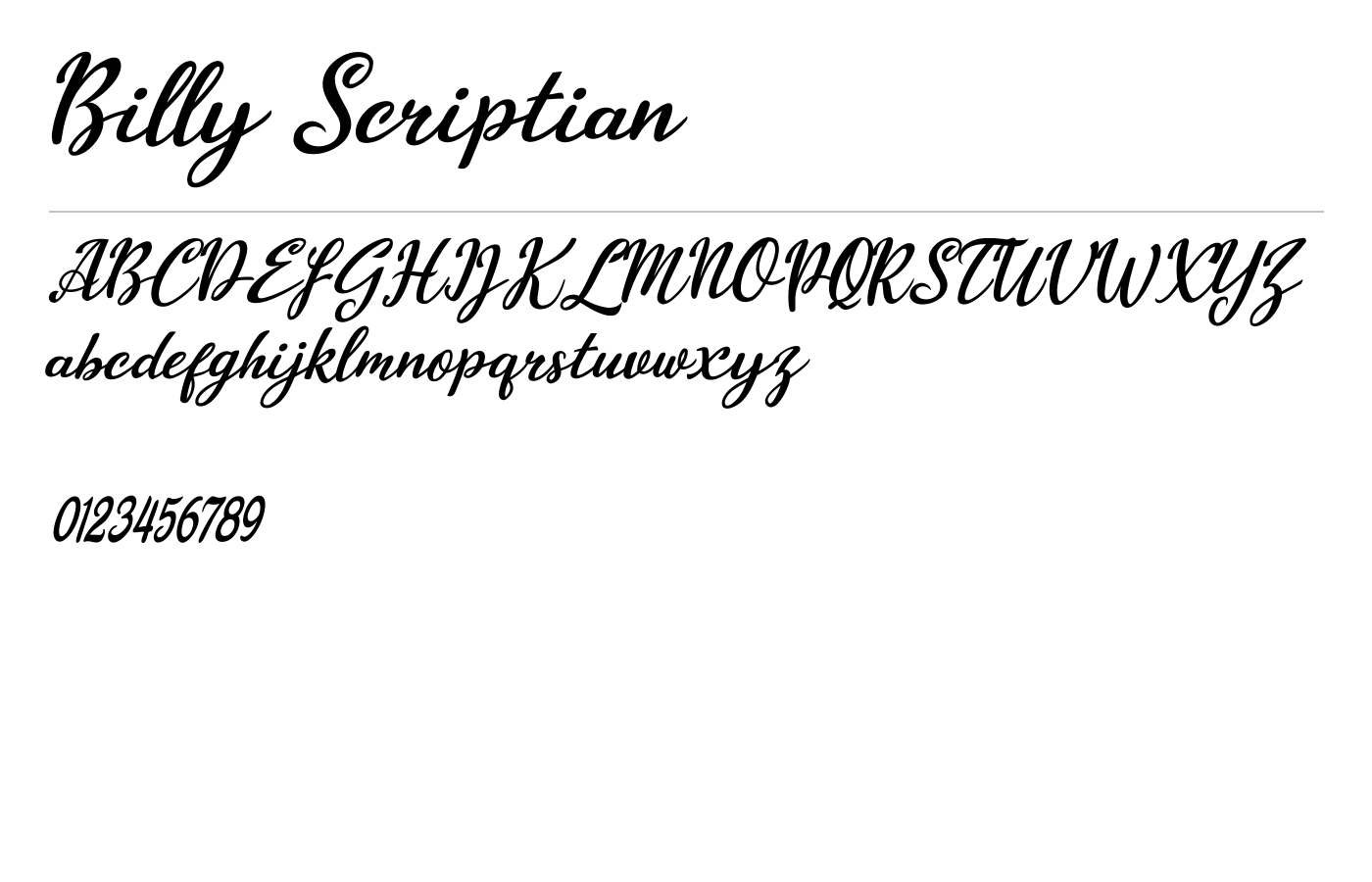
Billy Scriptian is a stylish, flowing script font with a medium weight and elegant, connected letterforms that mimic natural handwriting. Its smooth, slightly slanted strokes and balanced contrast create a refined yet approachable look, making it perfect for invitations, branding, and any design needing a touch of personal charm and sophistication. This font works beautifully in headlines or decorative text where a warm, graceful, and artistic feel is desired.
Billy Scriptian Font
About Billy Scriptian Font
| Font family | Billy Scriptian Font |
| Designer | Cundrawan (cove703) |